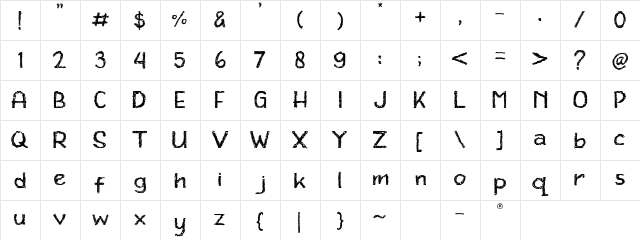
Crayone personal use only Regular Free Font
Crayone personal use only Regular
Designer: Abo Daniel 2018
Design Context for Crayone personal use only
Crayone personal use only is a composed and adaptable typeface that performs quietly and consistently across a wide range of design contexts.